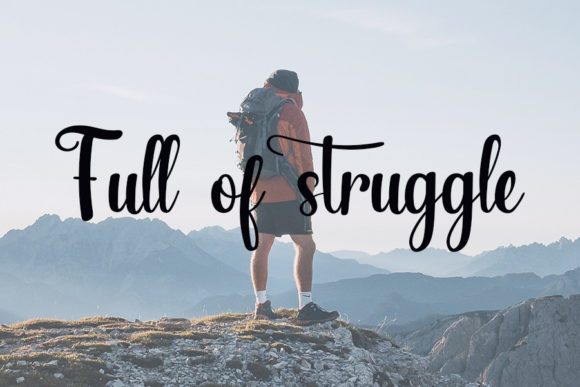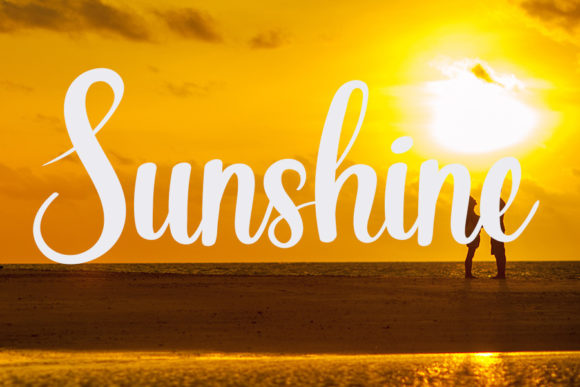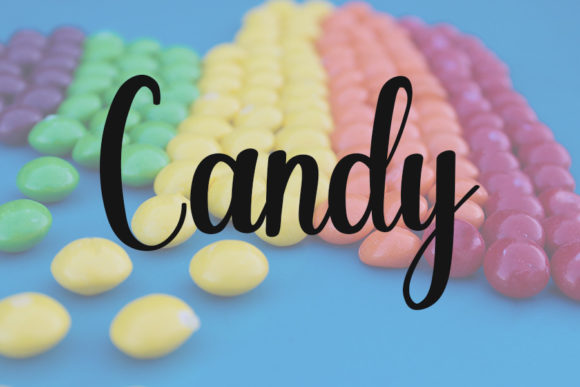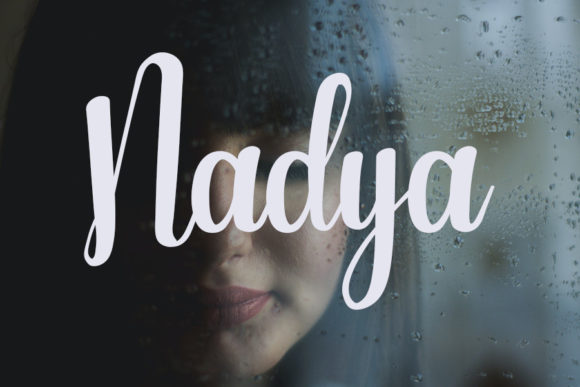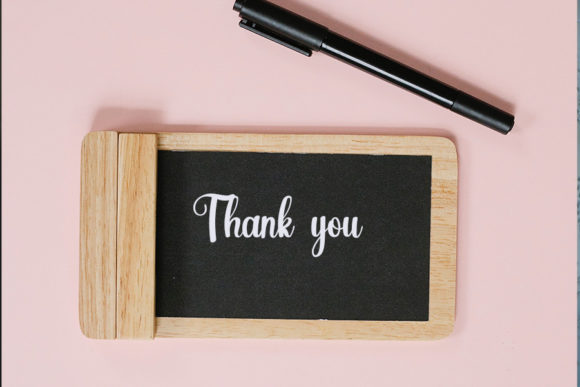
Night Font
About Night Font
Night is a captivating and elegant handwritten font that exudes a sense of sophistication and charm. Its delicate strokes and unique design elements make it a perfect choice for adding a touch of luxury and elegance to your design projects.
With its light and airy appearance, Night brings a sense of refinement and beauty to any project it graces. The font’s unique feel sets it apart from the ordinary, giving your designs a distinctive and memorable quality that captures attention and leaves a lasting impact.
Whether you’re working on logos, branding, invitations, packaging, or any other design endeavor, Night has the versatility to complement a wide range of applications. Its stunning impact is evident in its graceful curves, stylish alternates, and well-crafted characters that come together to create a harmonious and visually pleasing composition.
The luxury spark that Night adds to your design projects is undeniable. Its intricate details and carefully crafted design make it a font that radiates elegance and style. When used in your creations, it elevates the overall aesthetic and creates a sense of sophistication that resonates with your audience.
Incorporating Night into your projects is a surefire way to infuse them with a sense of luxury and exclusivity. Its handwritten charm and unique feel make it an excellent choice for conveying a premium and high-end vibe, whether it’s in logos, headlines, quotes, or any other creative element you choose.
To sum it up, Night is a beautiful and light handwritten font that possesses a unique feel and an undeniable impact. Its ability to add a luxury spark to your design projects makes it a valuable asset in your creative toolkit, enabling you to craft visuals that are both stunning and memorable.